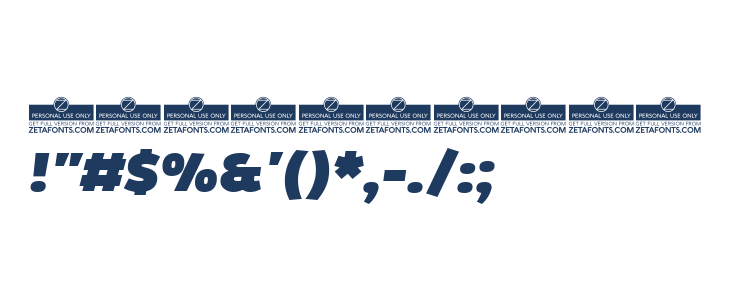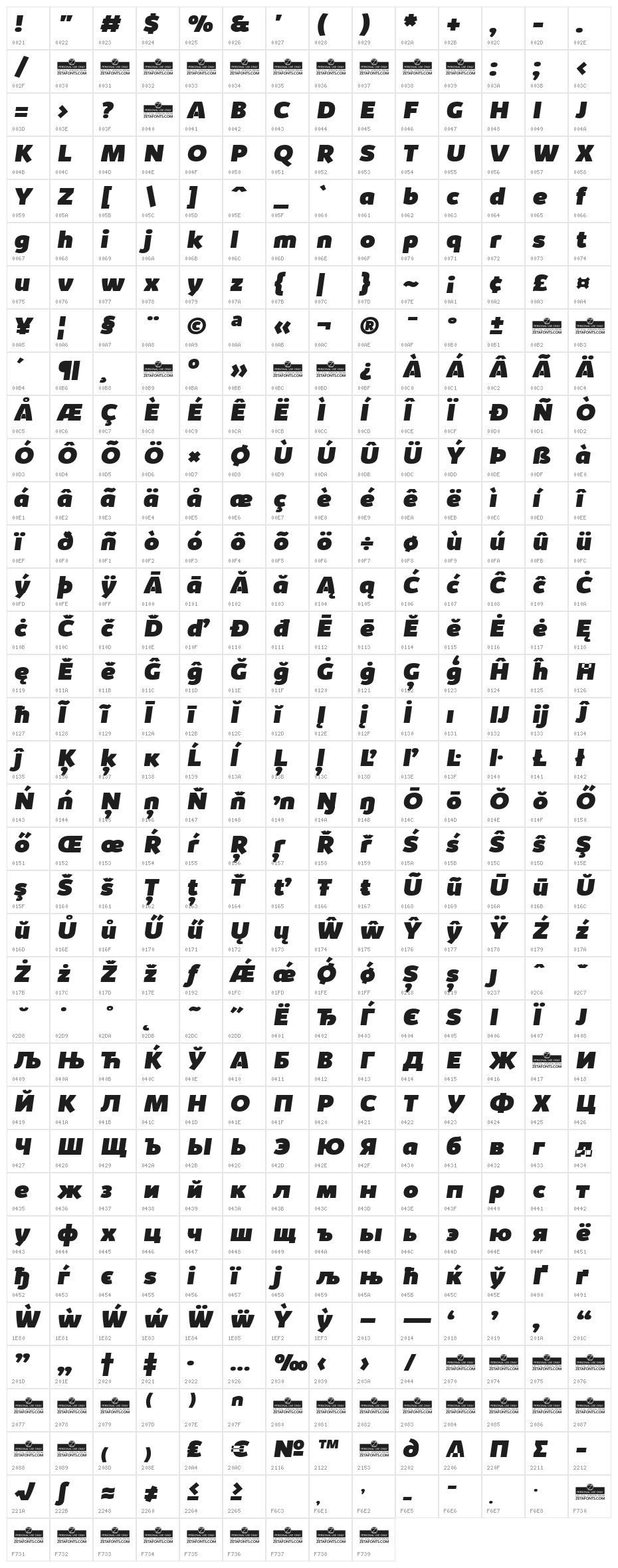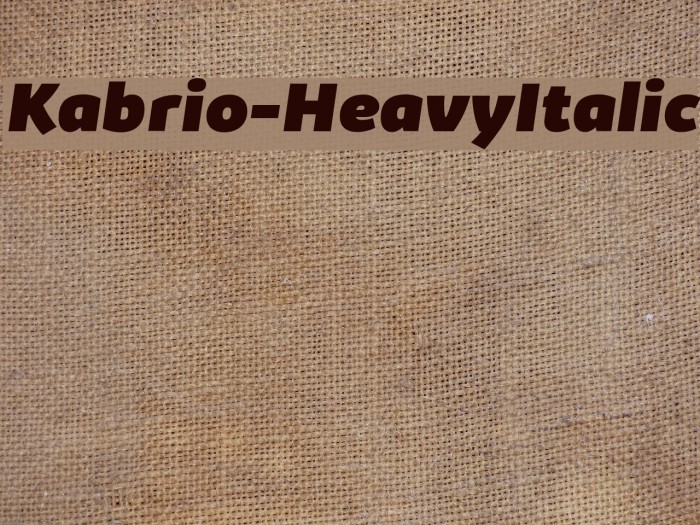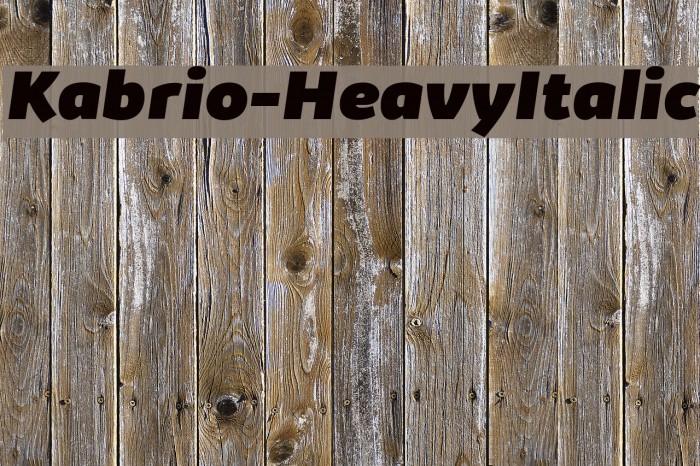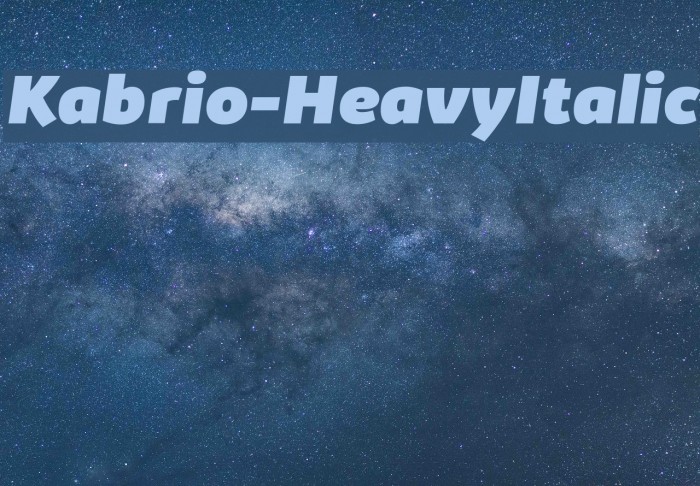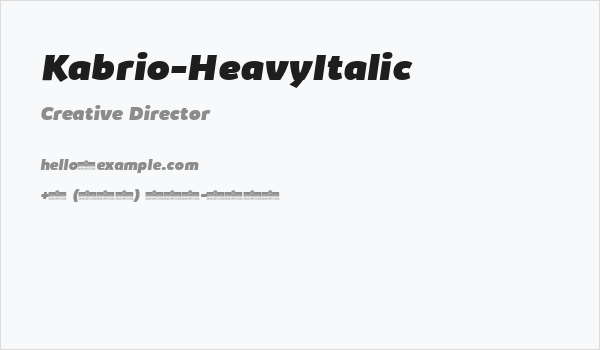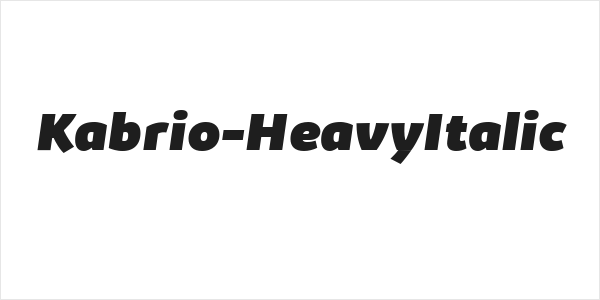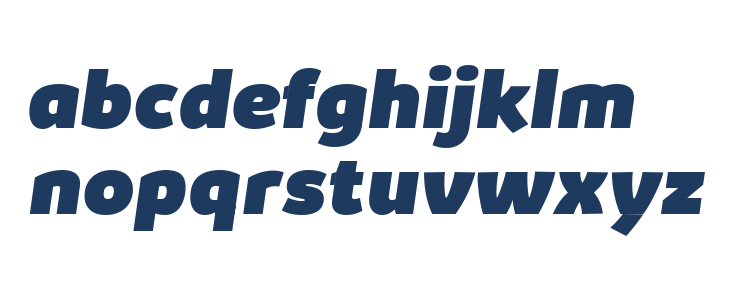
Kabrio-HeavyItalic Font
Kabrio-HeavyItalic Description
This font exhibits a bold and dynamic style with a strong italic slant, giving it a sense of motion and energy. The characters are thick and robust, making them highly legible and impactful. The uppercase letters are particularly striking, with a consistent weight that conveys strength and confidence. The lowercase letters maintain the same boldness, ensuring uniformity across text. The numerals and special characters are designed to match the overall bold aesthetic, providing a cohesive look. This font's design is modern and assertive, suitable for making a strong visual statement.
| Proposed Projects | Ideal for branding, advertising, headlines, and any project requiring a strong visual impact. |